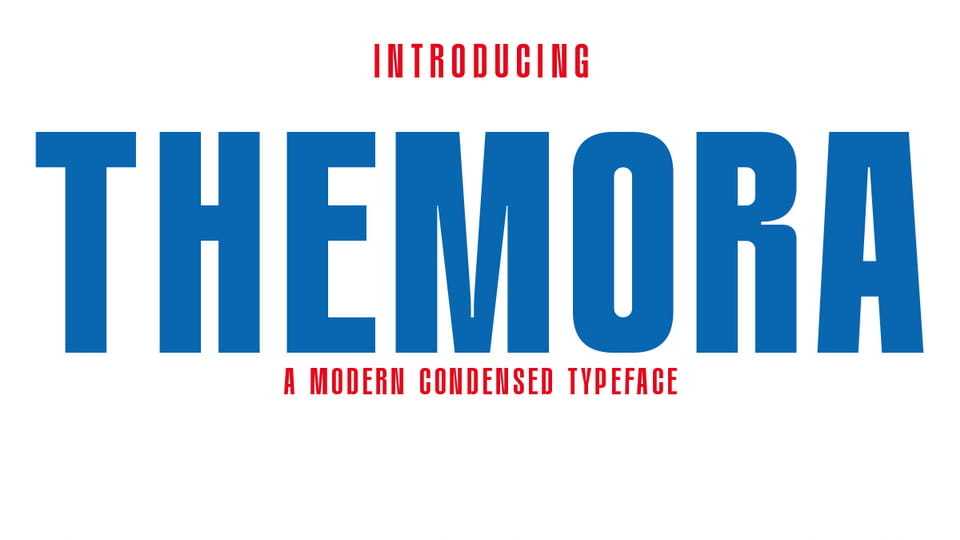
Download Themora font, a modern condensed typeface designed to deliver strong visual impact with a clean and contemporary style. Its tall and narrow letterforms create a powerful typographic presence.
Designer: Saystudio